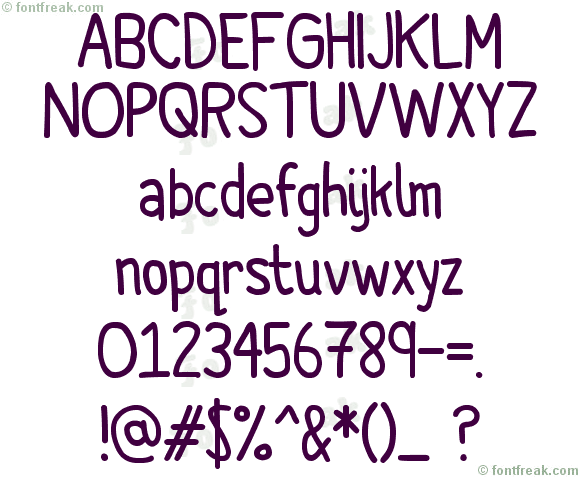
ComicSpans
About ComicSpans
ComicSpans, designed by Andrew McCluskey in 2013, is a playful display typeface that captures the essence of comic book lettering. As a decorative font, it features a distinctive handwritten style that exudes creativity and fun. The stroke weight is moderate, providing a balanced appearance that enhances readability while maintaining the whimsical character typical of comic fonts. The design boasts rounded edges and a unique, informal flair, making it visually inviting.
ComicSpans is particularly versatile in its applications. Ideal for comic strips and graphic novels, it brings characters and stories to life with its quirky charm. Additionally, this font can elevate the design of children’s book covers, providing an engaging look that appeals to younger audiences. It is also a fantastic choice for promotional materials for events like comic conventions or gaming tournaments, where a sense of excitement and adventure is key. Furthermore, its playful aesthetic works well for restaurant menus that want to convey a casual, friendly atmosphere, or for social media graphics aimed at content creators looking to stand out.
Targeting graphic designers, small business owners, and content creators, ComicSpans offers an approachable yet stylish option that caters to a variety of projects. The font’s unique character makes it a go-to choice for those seeking to infuse a sense of fun and creativity into their designs.
What sets the ComicSpans font apart is its ability to blend a casual, approachable style with versatility across many use cases. Whether you are crafting a comic, designing an engaging menu, or creating eye-catching promotional materials, ComicSpans font free download provides a perfect solution for anyone looking to add a touch of whimsy to their work.